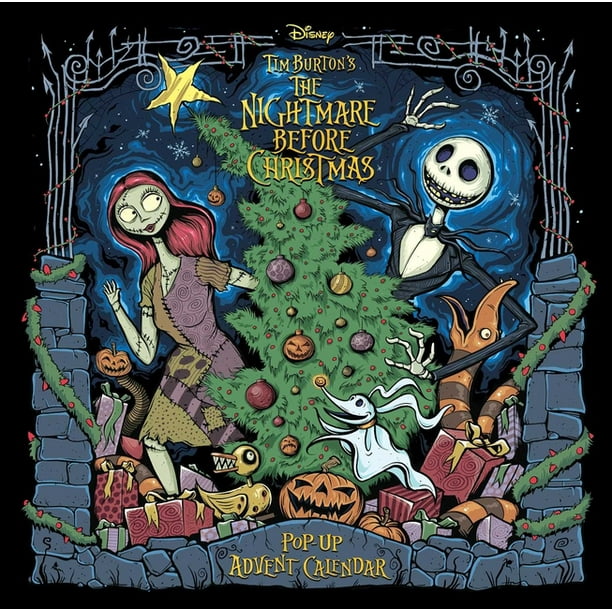
Nightmare Before Christmas Font Merry Christmas
Tim Burton’s The Nightmare Before Christmas Enter an extraordinary world filled with magic and wonder, where every holiday has its own special land This is the heartfelt tale of Jack Skellington, the Pumpkin King of Halloween Town and all things that go bump in the night.
Nightmare before christmas font merry christmas. What Font Was Used in The Nightmare Before Christmas Logo and Posters?. About Nightmare Before Christmas Font The Nightmare before Christmas is a stop motion film by Henry Selick released in 1993 The film centers on Jack Skellington’s attempt to rule the Christmas Town instead of the Halloweentown, where he is the Pumpkin Though he finally achieved this goal indeed, a lot of things happened out of his expectations The Nightmare before Christmas title lettering is very similar to a font named Burton’s Nightmare. Twas The Nightmare Before Christmas Daily Deviation Add to Favourites Comment By happydoo2 Watch 28 Favourites 17 Comments 103K Views Badge Awards 1 Twas the night before Christmas and all through the house, not a creature was stirring, not even a mouse “Merry Christmas to you”.
We have been searching for a while and we couldn’t find the exact font used in The Nightmare Before Christmas logo Probably it’s a custom font, or maybe they customized another font in order to get this Anyway, we’ve found a font very similar font used in the movie. Nightmare Before Christmas Style Machine Embroidery Font Set $ 100 The Nightmare Before Christmas Monogram Font Set in 5″ 1″ 2″ & 3″ sizes Includes letters and bonus punctuation Made with fill stitch 116 files total Formats Available PES, XXX, VIP, VP3, HUS, JEF, SEW, EXP, PCS, DST, BX Note The product you are purchasing is a digitized embroidery designs file or monogram font set. May 21, 12 The Nightmare Before Christmas font Excellent for stenciling.
It is super easy to use Just download the zip file, open it onto your computer, and upload the individual files onto your Cricut Design Space or insert them into a. Burton's Nightmare Font dafontcom English Français Español Deutsch Italiano Português Login Register Themes New fonts Authors Top Forum FAQ Submit a font Tools 14 matching requests on the forum Burton's Nightmare Custom preview First seen on DaFont before 05. Download the Nightmare Before Christmas font by Film Himmel Jens R Ziehn The Nightmare Before Christmas font has been downloaded 318,912 times.
This spooky, fun Nightmare Before Christmas font can be used for all of your Crafting needs!. The Nightmare before Christmas fonthere refers to the fontused for the poster title of The NightmareBeforeChristmas, which is a stop motion film by Henry Selick Nightmare Before Christmas font Fonts2u Fontsavailable at Fonts2ucom are either GNU/GPL, Freeware, free for Personal use, Donationware, Shareware or Demo. Download 10,000 fonts with one click for $1995 Licensed for personal and commercial use Merry Christmas in Calligraphy, Christmas Merry Christmas Måns Grebäck Merry Christmas Nightmare Before Christmas in Horror, Halloween, Movies TV Nightmare Before Christmas Film Himmel Jens R Ziehn.